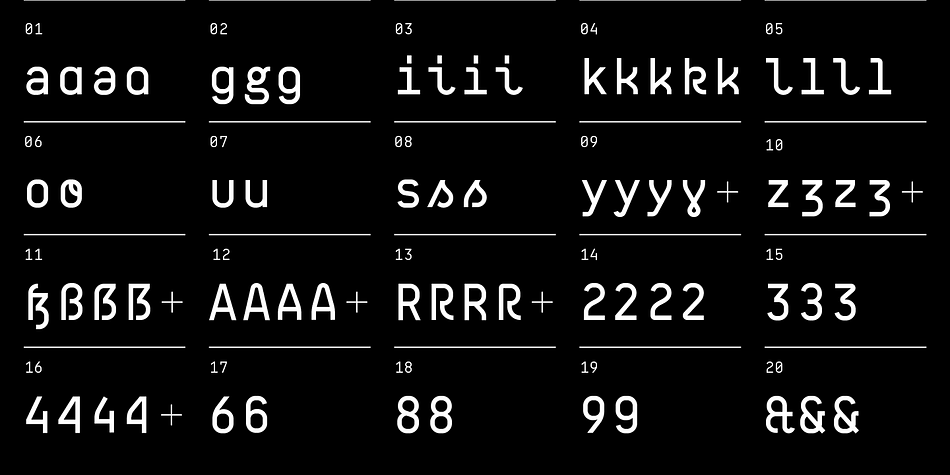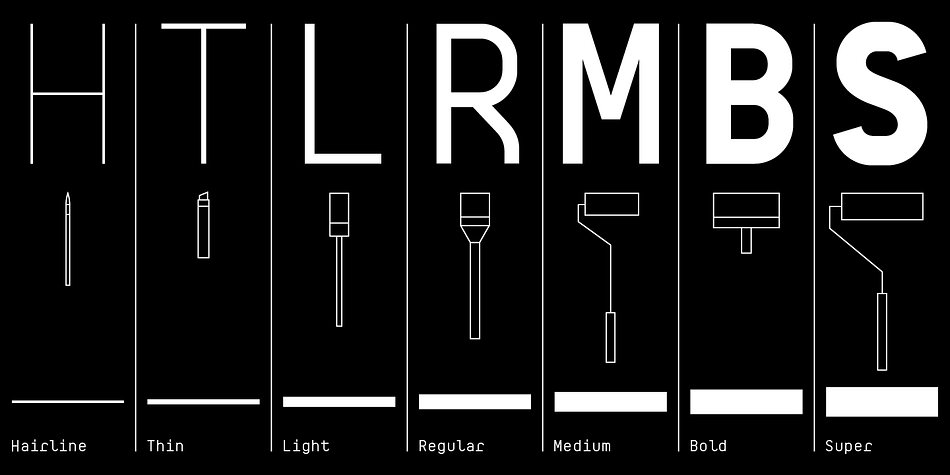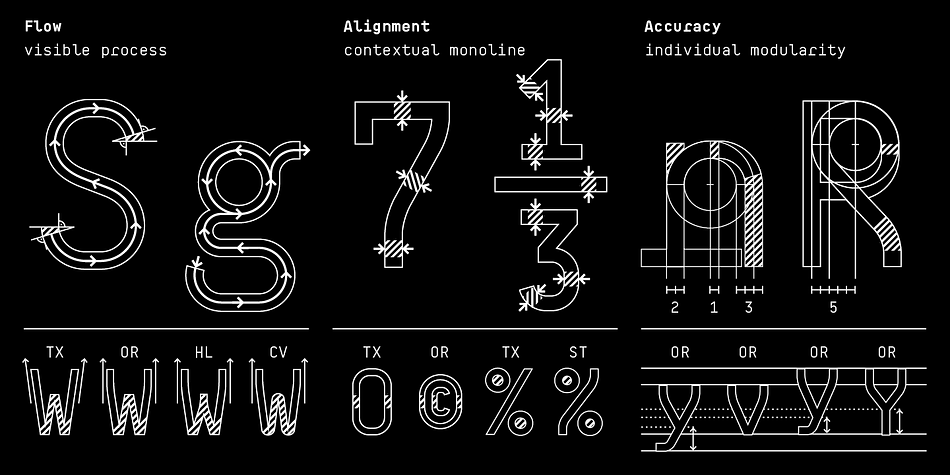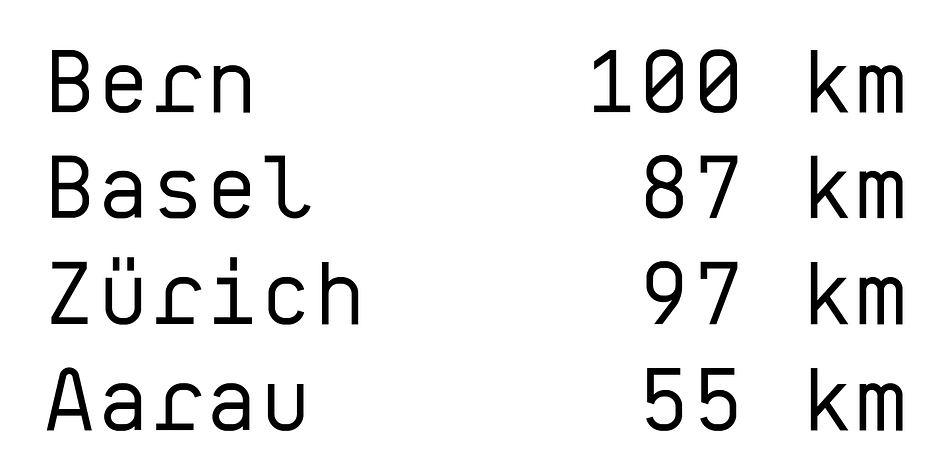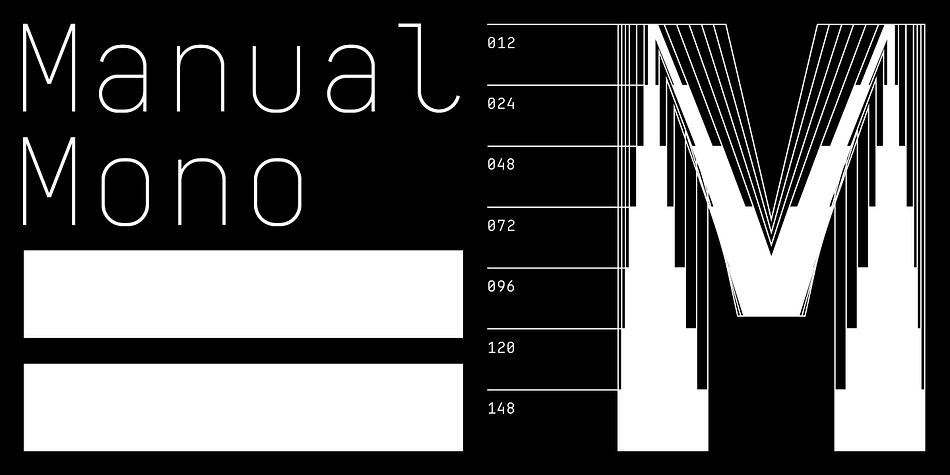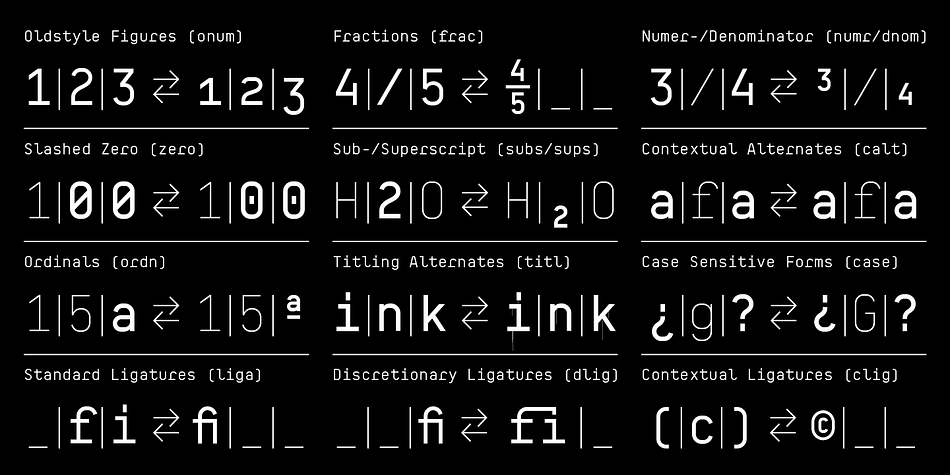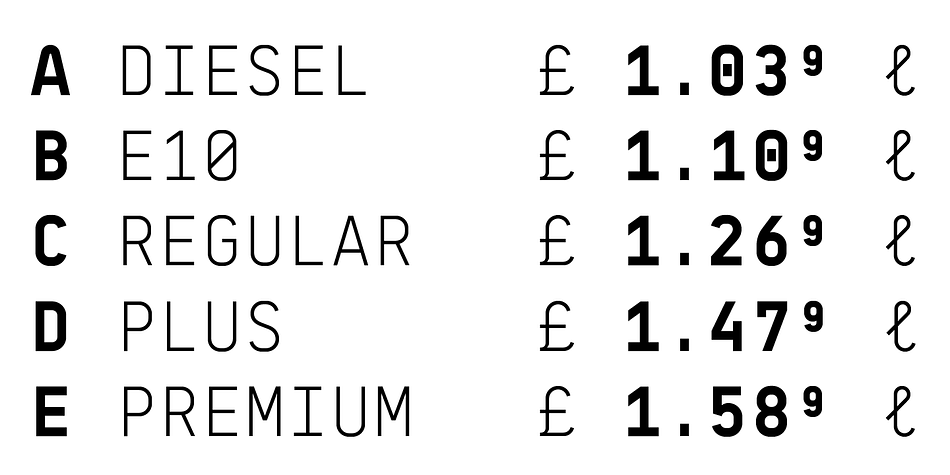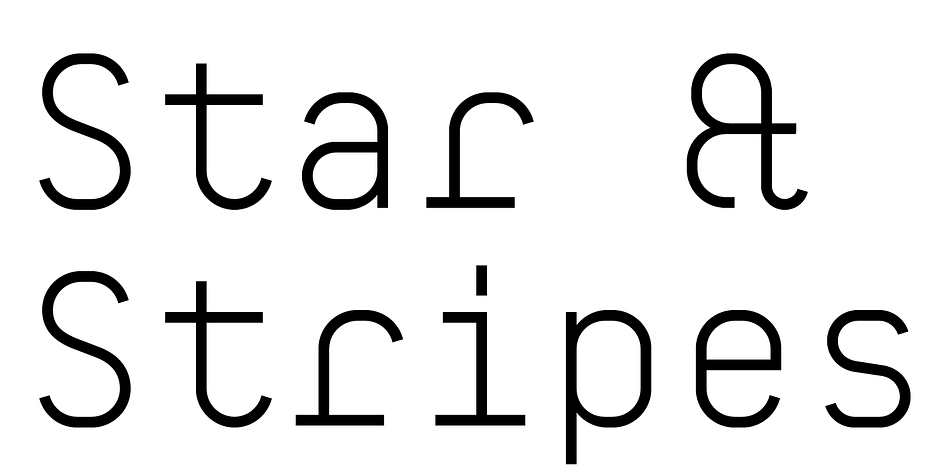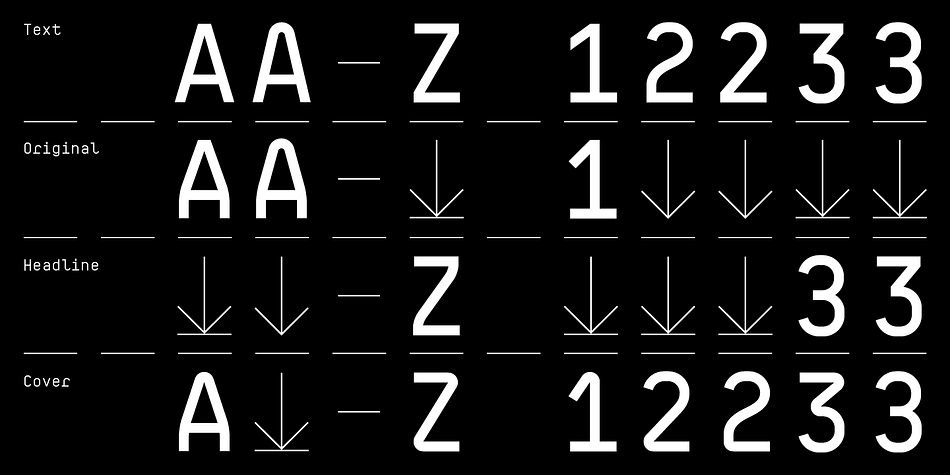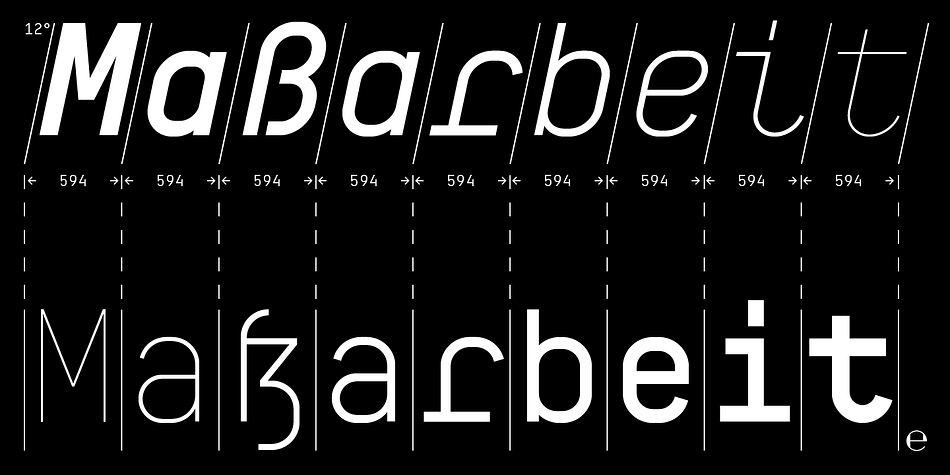
BB Manual Mono™ (Pro) is a display sans font family. This typeface has sixty styles and was published by Bold Studio.
BB Manual Mono™ Pro visualizes the work of painters: Craftsmanship, precision, professionalism and their tools. The special features of the Font emphasize the work process.
● Flow: visible process
● Alignment: contextual monoline
● Accuracy: individual modularity
● 5 Variants (TX (Text), IT (Italic), ST (Standard), HL (Headline), CR (Cover)
● 40 OT-Features/Style
● 60 Styles
● 100 Stylistic-Sets (20/Variant)
● 122 Languages Support (Latin, Greek, Cyrillic)
● 86,100 Glyphs (1,435/Style)